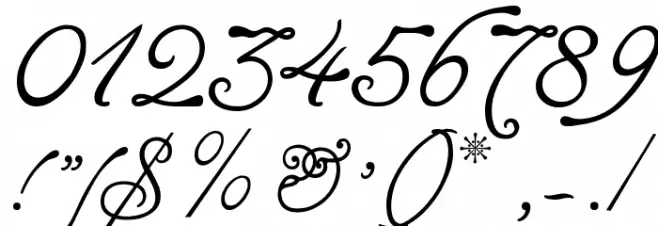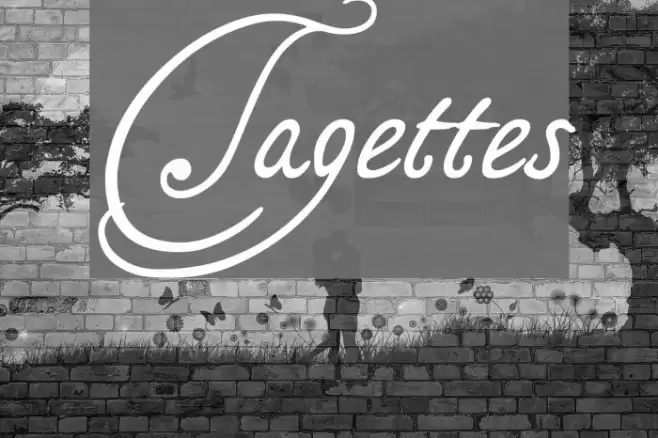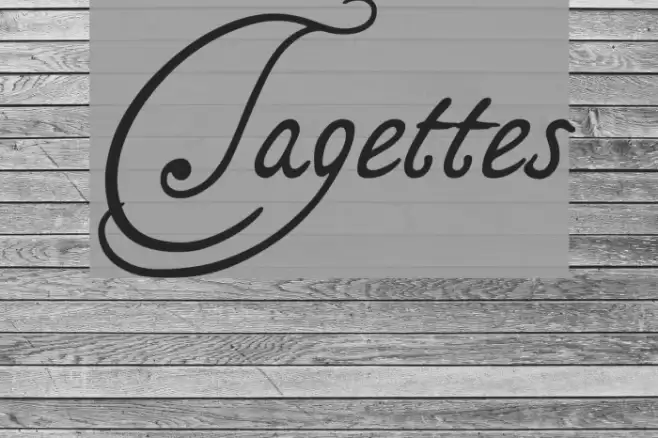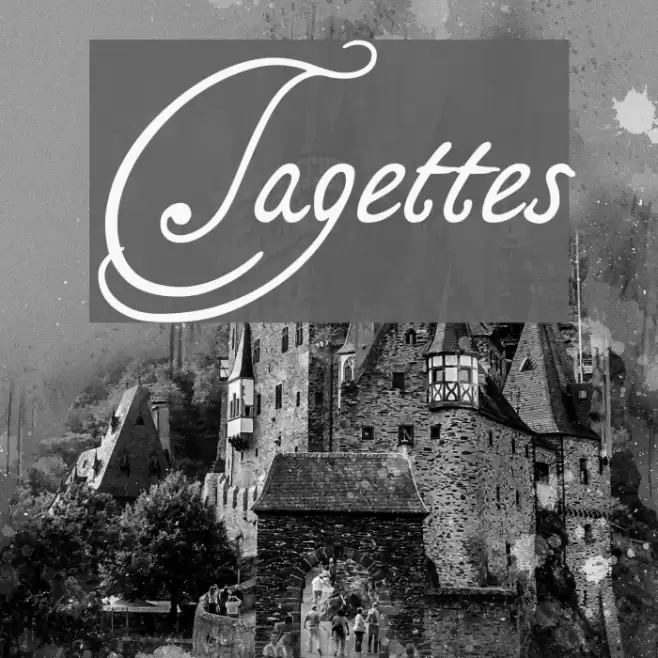
Tagettes Font
Tagettes Description
This elegant script font features intricate swirls and flourishes, giving it a sophisticated and artistic appearance. The uppercase letters are adorned with decorative loops, while the lowercase letters maintain a fluid and connected style, reminiscent of classic calligraphy. The numerals and special characters are equally ornate, with consistent detailing that enhances the font's cohesive look. This font is ideal for projects that require a touch of elegance and refinement, such as wedding invitations, formal event programs, or luxury branding materials.
| Overall Style | Classic |
| Use Case | Logos, Invitations, Decorative text |
| Proposed Projects | Wedding invitations, formal event programs, luxury branding materials. |